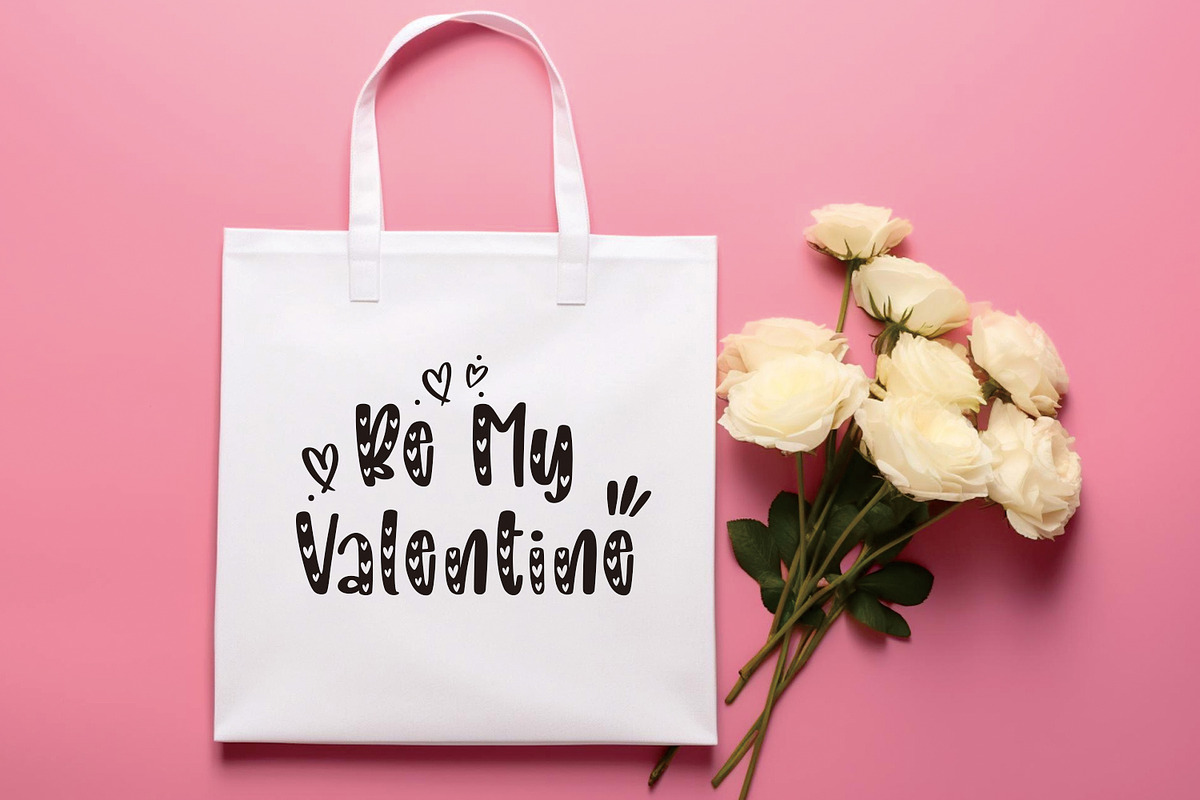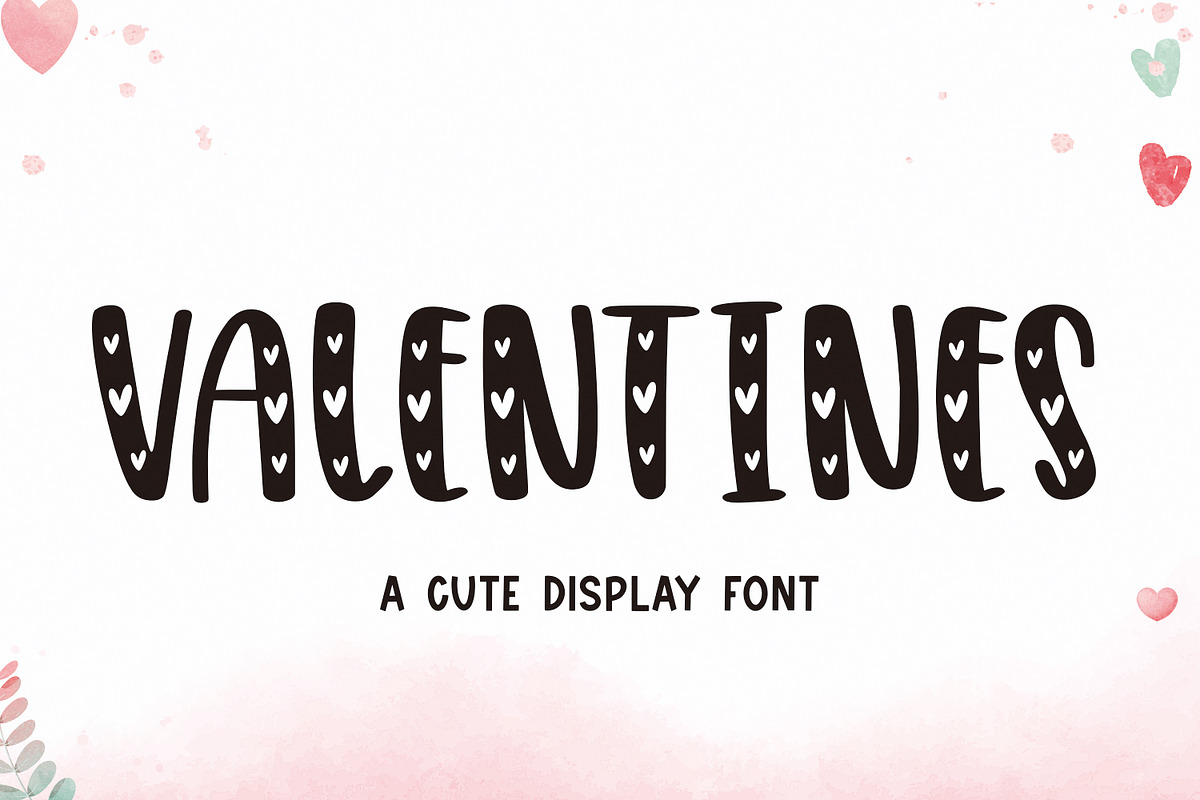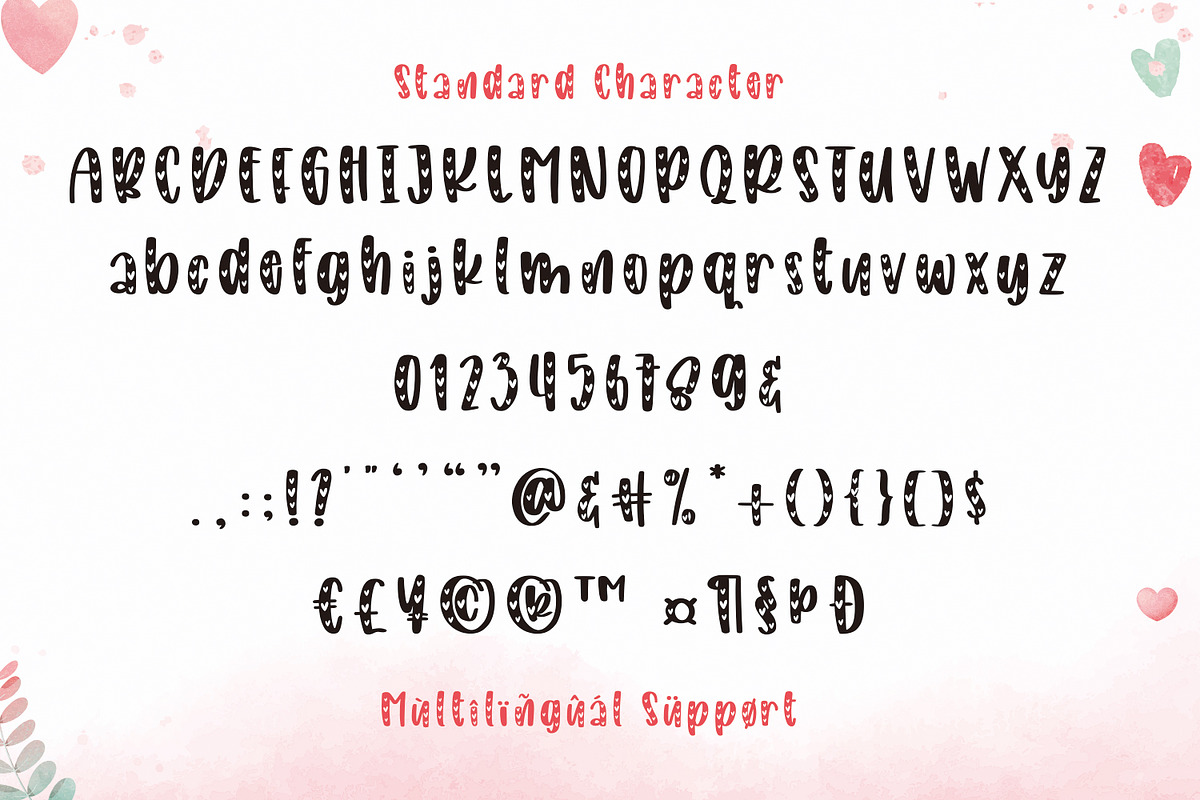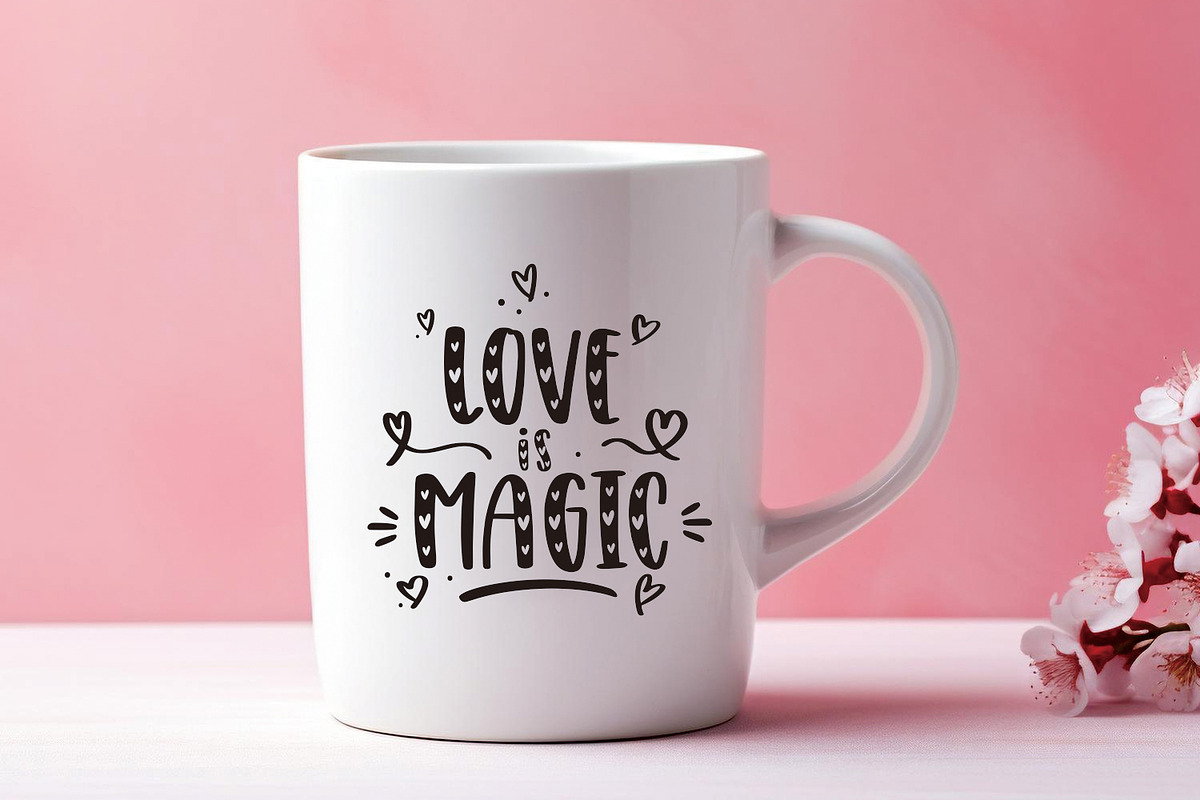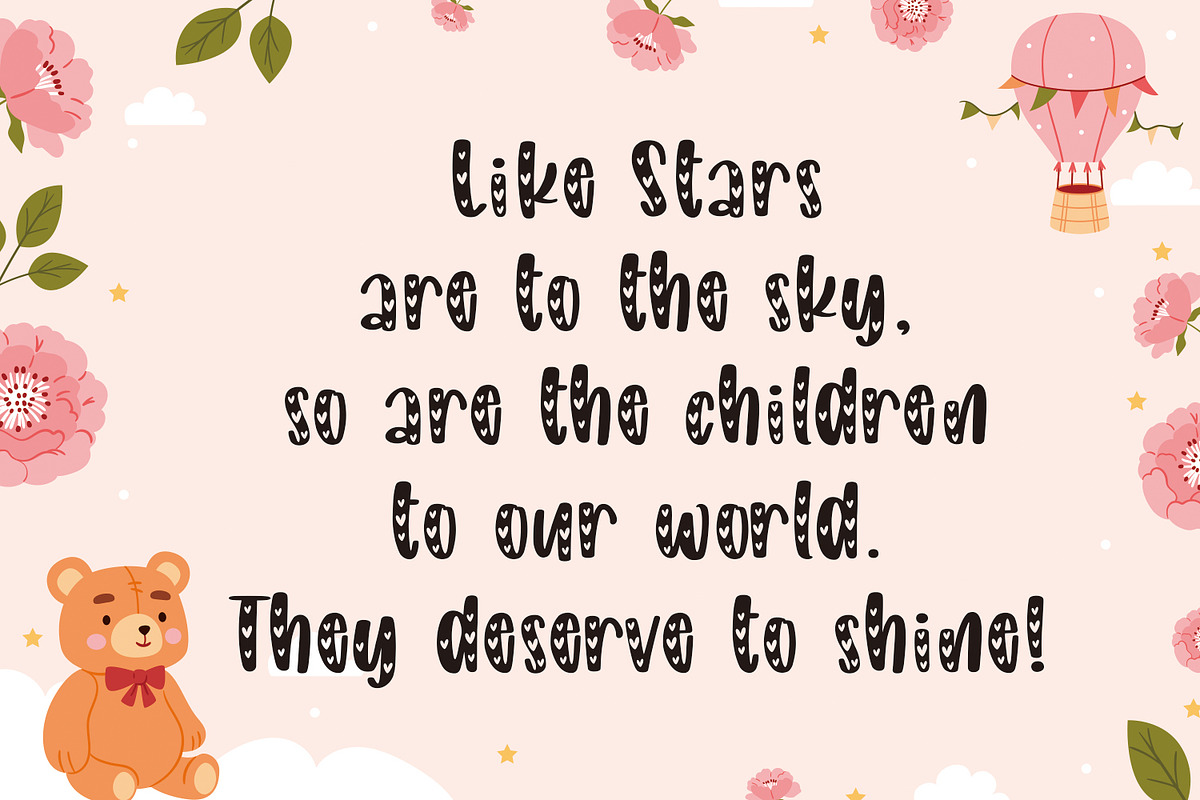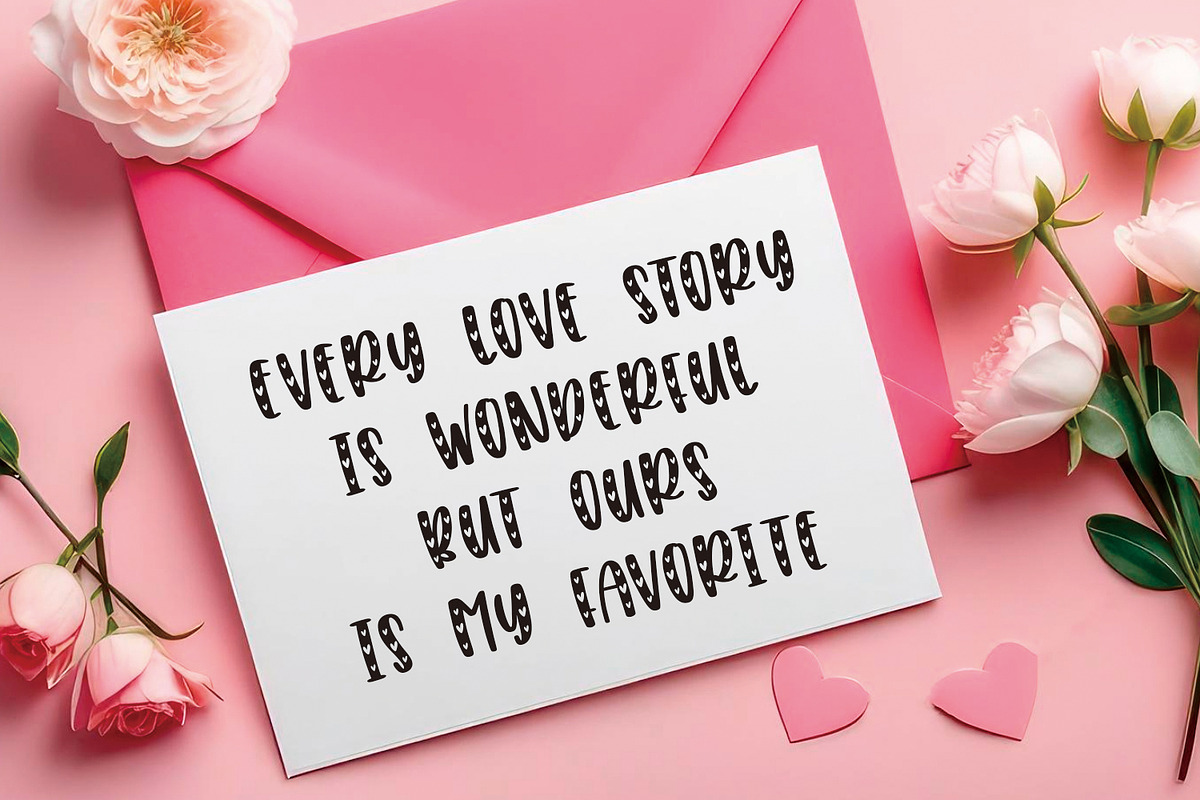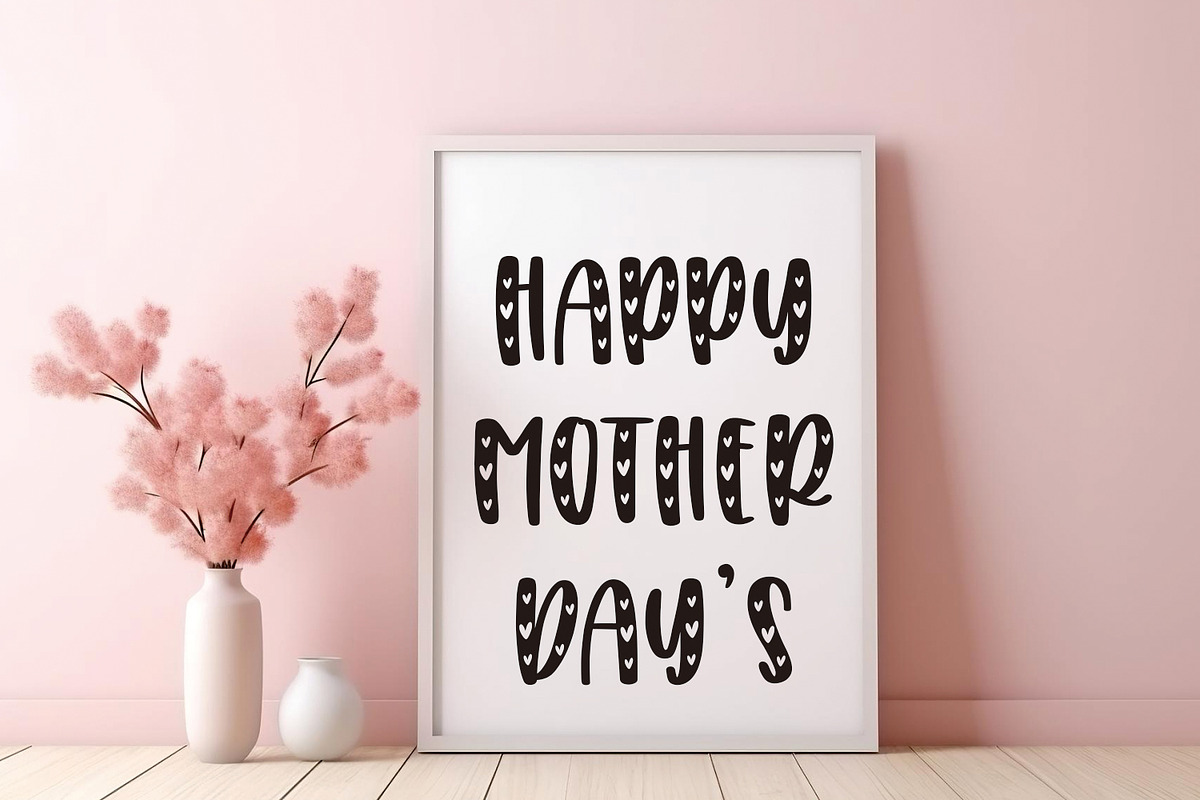
Valentines
Introducing our enchanting Valentine’s Font – a delightful fusion of display style and cute font elements, tailor-made for themes of love, Valentine’s Day, Mother’s Day, crafts, greeting cards, decorations, craft lettering, and embroidery. This font effortlessly encapsulates the essence of affection and warmth, making it the perfect choice for expressing heartfelt sentiments.
Crafted with precision and adorned with whimsical details, our Valentine’s Font adds a touch of charm to your creative projects. Whether you’re designing personalized cards, creating beautiful decor, or engaging in craft lettering or embroidery, this font brings a playful elegance that speaks volumes of love.
Elevate your projects with the sweet and endearing aesthetics of our Valentine’s Font. Let your creativity flourish as you infuse your designs with the tender emotions of love and gratitude. Download now and watch your creations come to life with an extra dose of sweetness.
Spread love and creativity effortlessly with our Valentine’s Font – where every stroke tells a story, and every letter is a celebration of affection. Download today and turn your projects into heartfelt masterpieces!